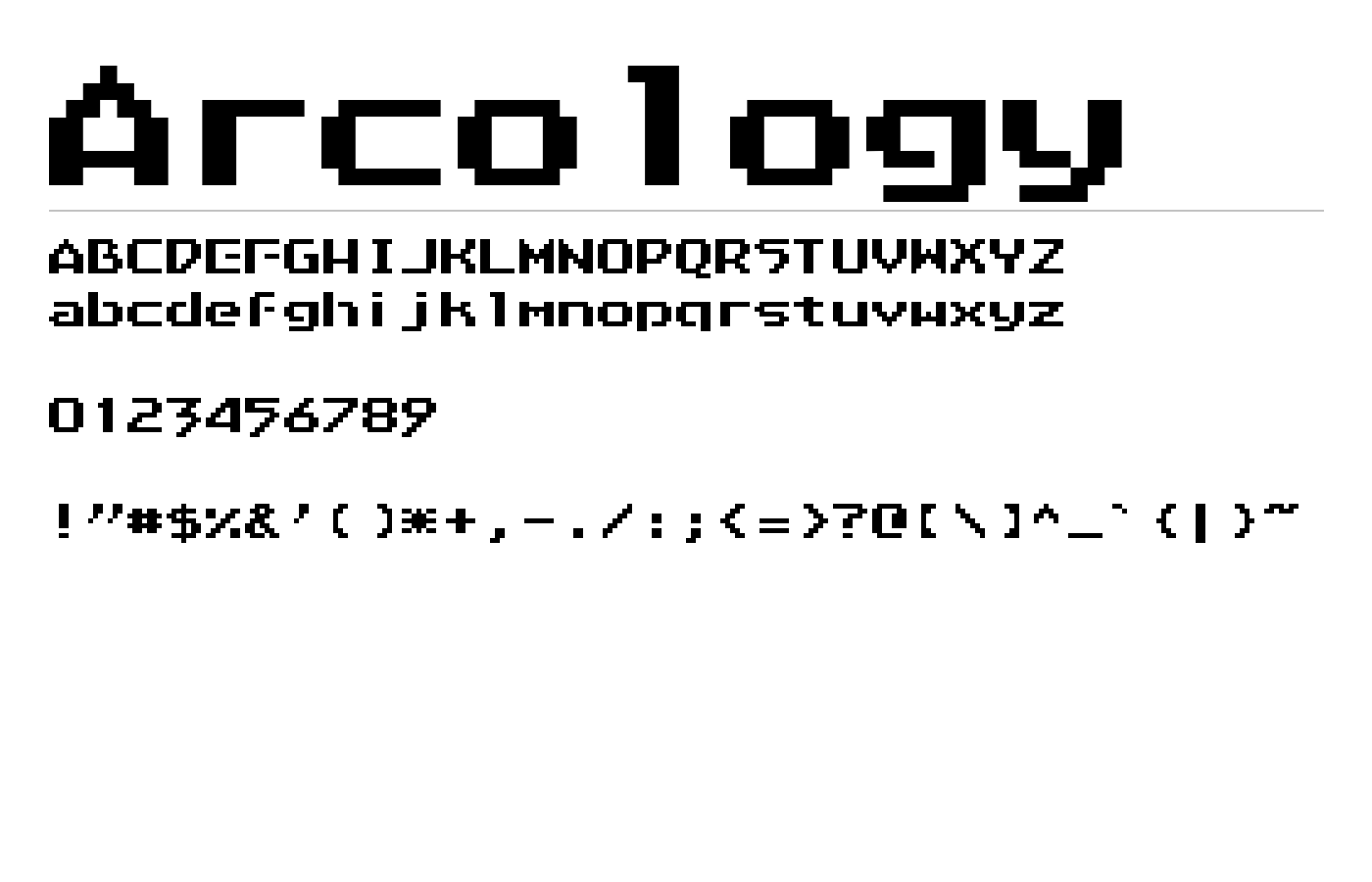
Arcology is a pixel-style, monospaced sans serif font that embraces a retro, digital aesthetic with its blocky, geometric letterforms and consistent stroke weight. Its high x-height and mono-width characters make it ideal for tech-inspired designs, video games, or projects that want to evoke a nostalgic, 8-bit computer feel. This font works well for headlines, logos, and digital-themed interfaces where a strong, vintage tech personality is desired.
Arcology Font
About Arcology Font
| Font family | Arcology Font |
| Designer | Caveras / Cliff Modes |